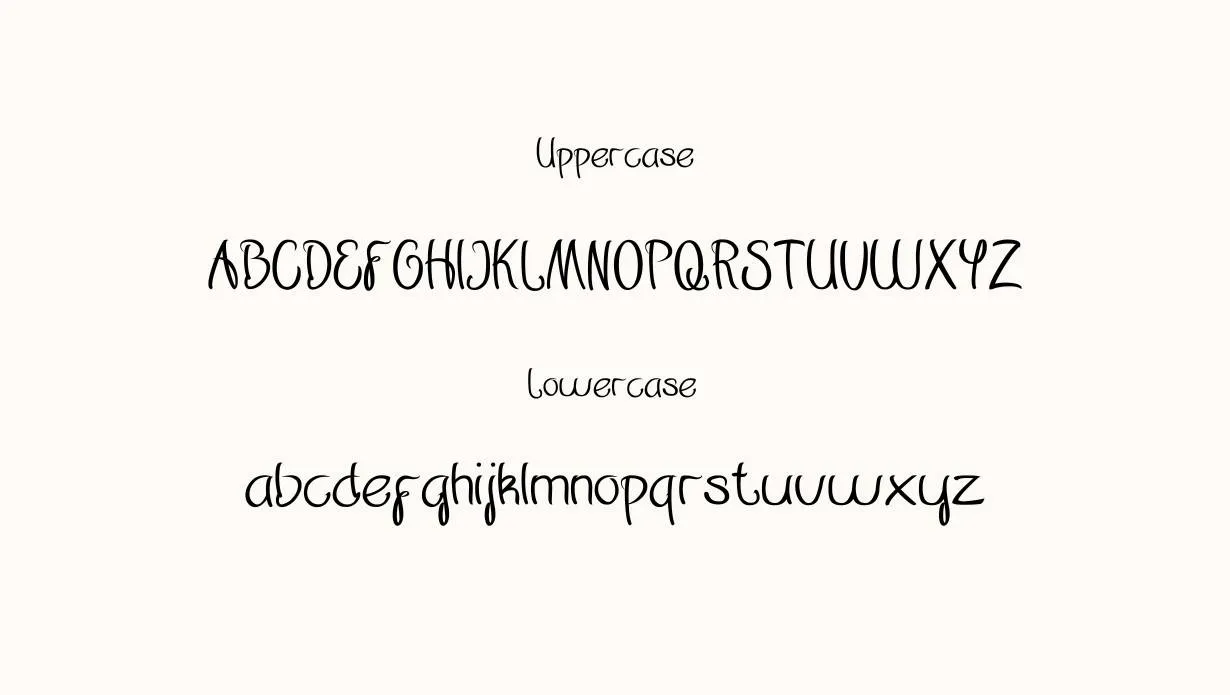
The Restaurants Font is often a playful and appetizing typeface, ideal for menus, food-related designs, or food blogs. In Adobe Photoshop, this font can be employed to design enticing menu cards or promotional banners for restaurants, making the text vibrant and engaging.
When using CSS, it can add a delicious charm to restaurant websites, making menu items more appealing.
Canva users often opt for this font to design menu templates or food-related social media posts, attracting attention and making the dishes look more enticing.